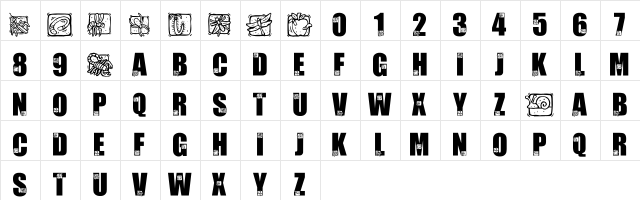
LMS Bad Bugs Regular Font Preview
LMS Bad Bugs Regular
Design Context for LMS Bad Bugs Typeface
LMS Bad Bugs offers clean, dependable letterforms without strong stylistic allegiance, making it a practical choice for designers who need flexibility.